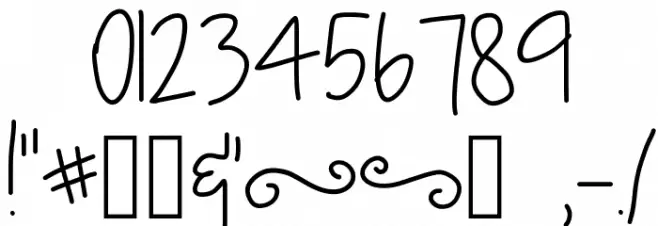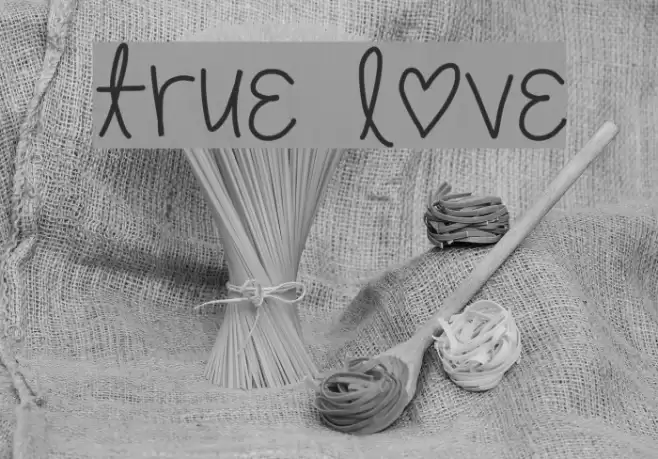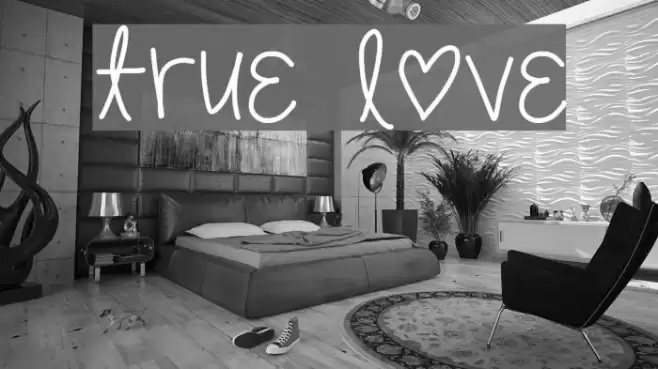
[true love] Font
[true love] Description
This playful and whimsical font features a handwritten style with a casual and friendly appearance. The uppercase and lowercase letters are characterized by a consistent stroke width, giving it a uniform look. Notably, the letter 'O' is replaced with a heart shape, adding a unique and charming touch. The numerals are clear and easy to read, maintaining the same playful aesthetic. Special characters like the ampersand and question mark are creatively designed, enhancing the font's overall appeal. This font is perfect for projects that require a personal and informal touch, such as greeting cards, invitations, or children's books.
A playful handwritten font with a heart-shaped 'O' and consistent stroke width from Uncategorized fonts.
- Proposed Projects: Ideal for greeting cards, invitations, children's books, and playful branding.
- Overall Style: Playful
- Use Case: Headlines, Invitations, Greeting Cards